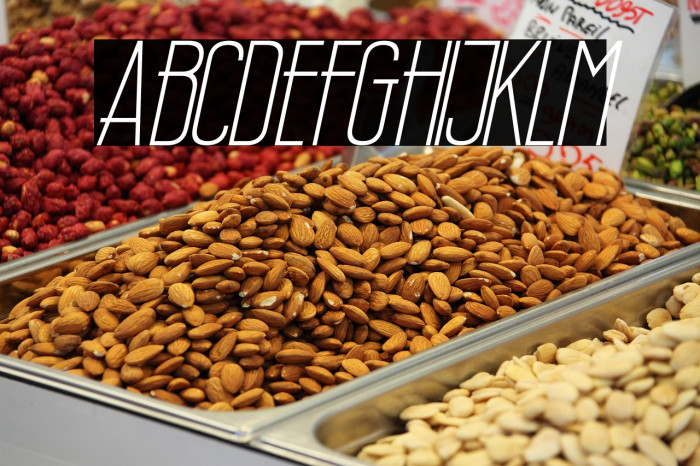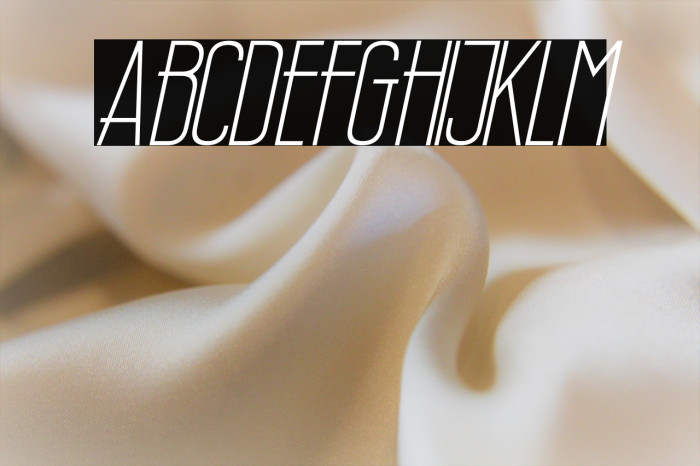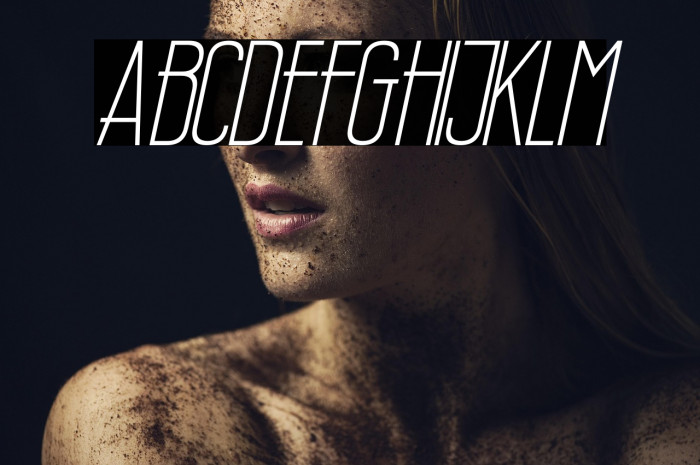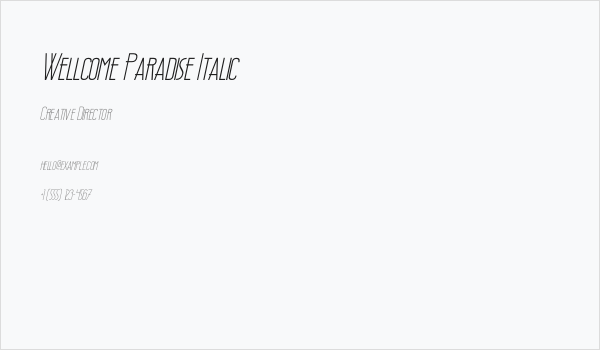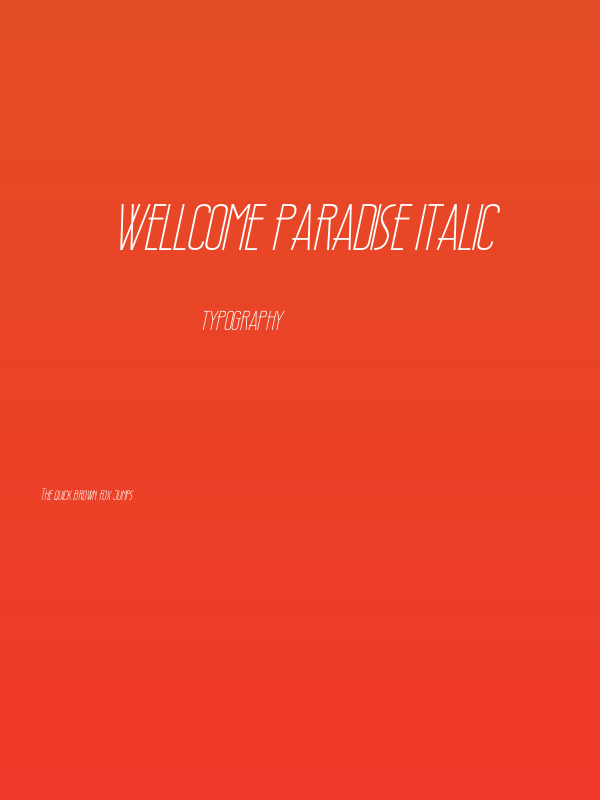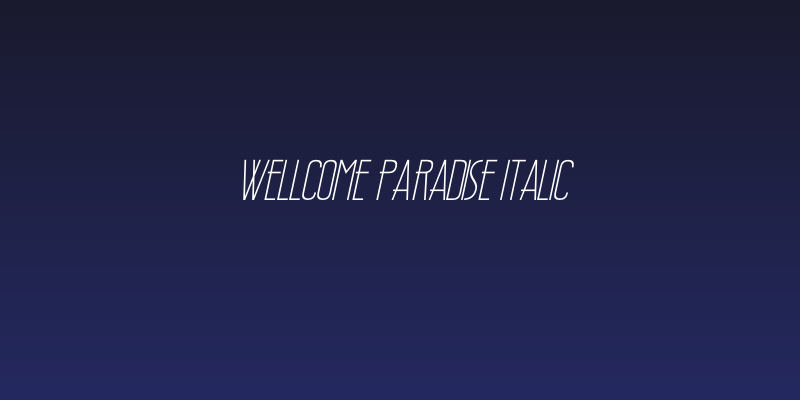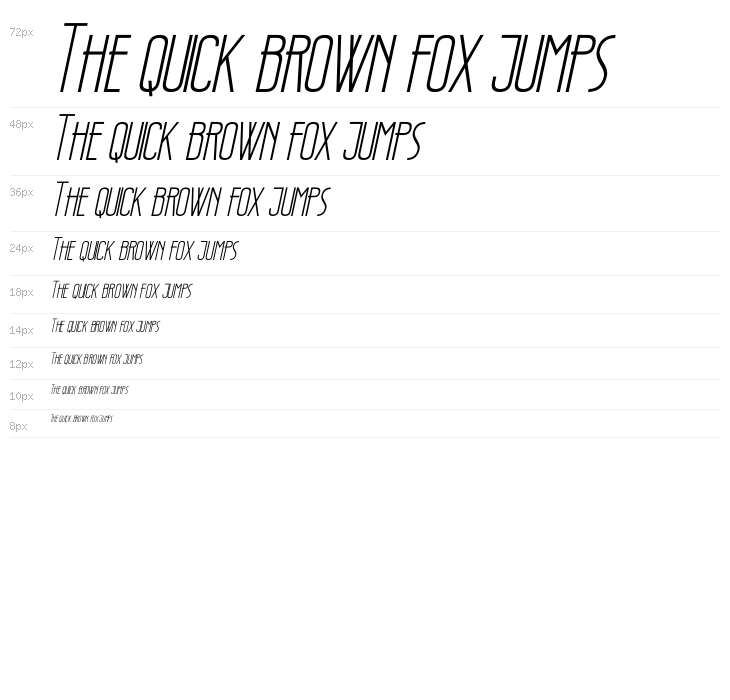
Wellcome Paradise Italic Font
Wellcome Paradise Italic Description
This font features a sleek, elongated design with a distinct italic slant, giving it a dynamic and modern appearance. The characters are narrow and tall, with a consistent stroke width that maintains a clean and streamlined look. The uppercase and lowercase letters share a cohesive style, with a slight angularity that adds a touch of sophistication. The numerals are similarly styled, ensuring uniformity across all characters. Special characters are included, maintaining the same elegant and contemporary aesthetic. The overall design is minimalistic yet striking, making it suitable for a variety of creative applications.
| Proposed Projects | Ideal for fashion branding, modern advertising, editorial design, and dynamic web graphics. |